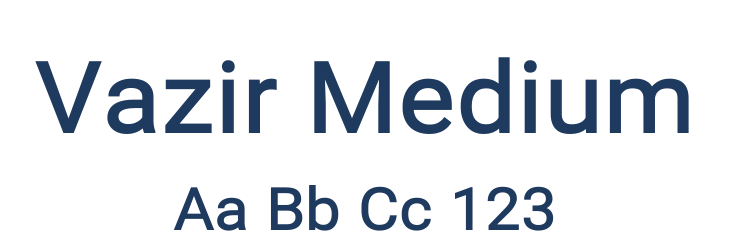
Vazir Font
A clean, modern sans-serif font with excellent readability.
Blogger Sans Bold Font
A bold, rounded sans-serif font with a modern and friendly appearance.
Vazir Bold Font
A bold, modern sans-serif font with excellent readability and uniform strokes.
Vazir FD Font
A clean, modern sans-serif font with balanced spacing and consistent stroke width.
Source Serif Pro Semibold Regular Font
A classic serif typeface with a modern touch and semi-bold weight.
Vazir Medium Font
A modern sans-serif font with clean, geometric letterforms.
Kitten Swash Monoline Font
A playful, elegant script font with monoline strokes and whimsical swashes.
Vazir Bold FD Font
A bold, clean sans-serif font with a modern and versatile design.
Vazir Medium FD Font
A modern sans-serif font with balanced weight and excellent readability.
Blogger Sans Bold Italic Font
A bold, italic sans-serif font with smooth, rounded edges and a modern look.
Blogger Sans Medium Italic Font
A modern, italic sans-serif font with medium weight and rounded edges.
Vazir Light Font
A clean, modern sans-serif font with excellent readability and a geometric touch.
GargleCdRg-Regular Font
Font by Typodermic Fonts
A playful, informal handwritten font with irregular strokes and a casual appearance.
GRENDEL BOLD Font
Chung-Deh Tien - www.redbubble.com/people/Kaiju
A bold serif font with strong strokes and elegant serifs, perfect for impactful designs.
Vazir Thin Font
A modern, thin sans-serif font with clean lines and balanced spacing.
Vazir Thin FD Font
A thin, modern sans-serif font with a clean and minimalist design.
Vazir Light FD Font
A clean and modern sans-serif font with consistent stroke width and excellent readability.
GargleRg-Bold Font
Font by Typodermic Fonts
A bold, playful font with rounded, cartoonish characters and a hand-drawn feel.
Eye Rhyme Font
A dynamic and edgy font with elongated serifs and a playful style.